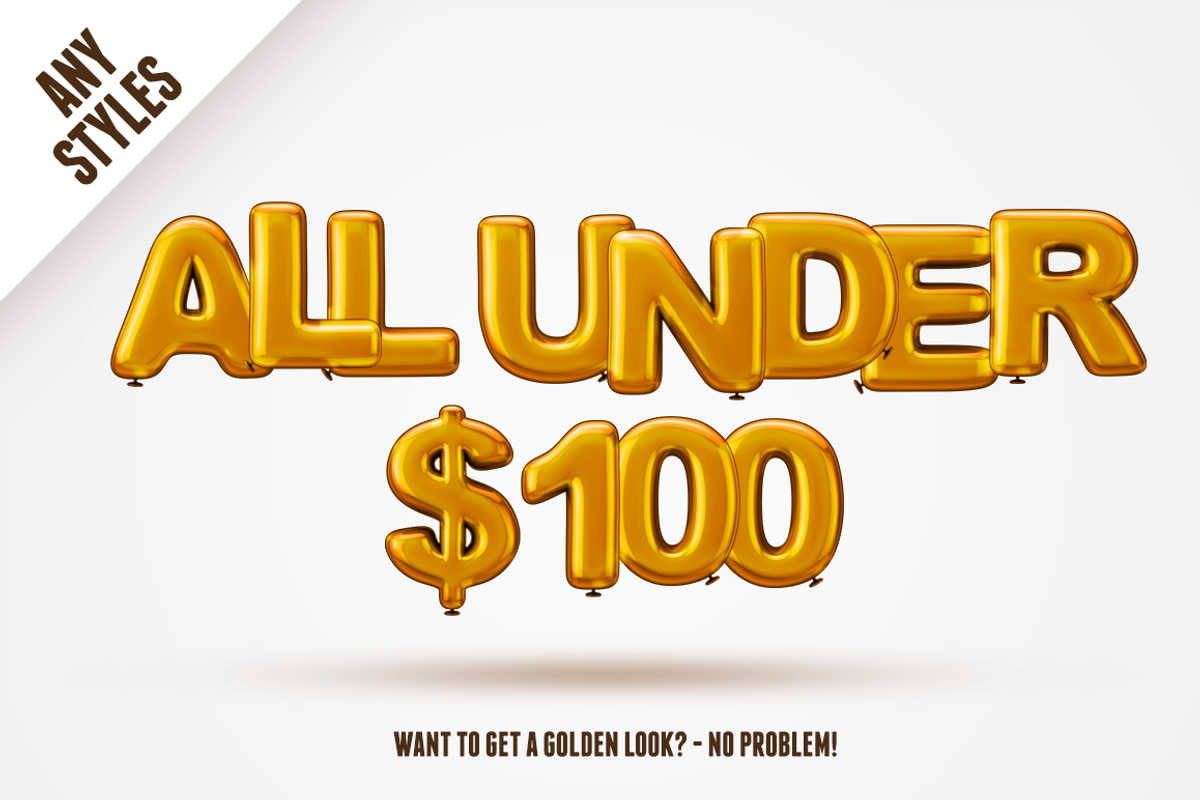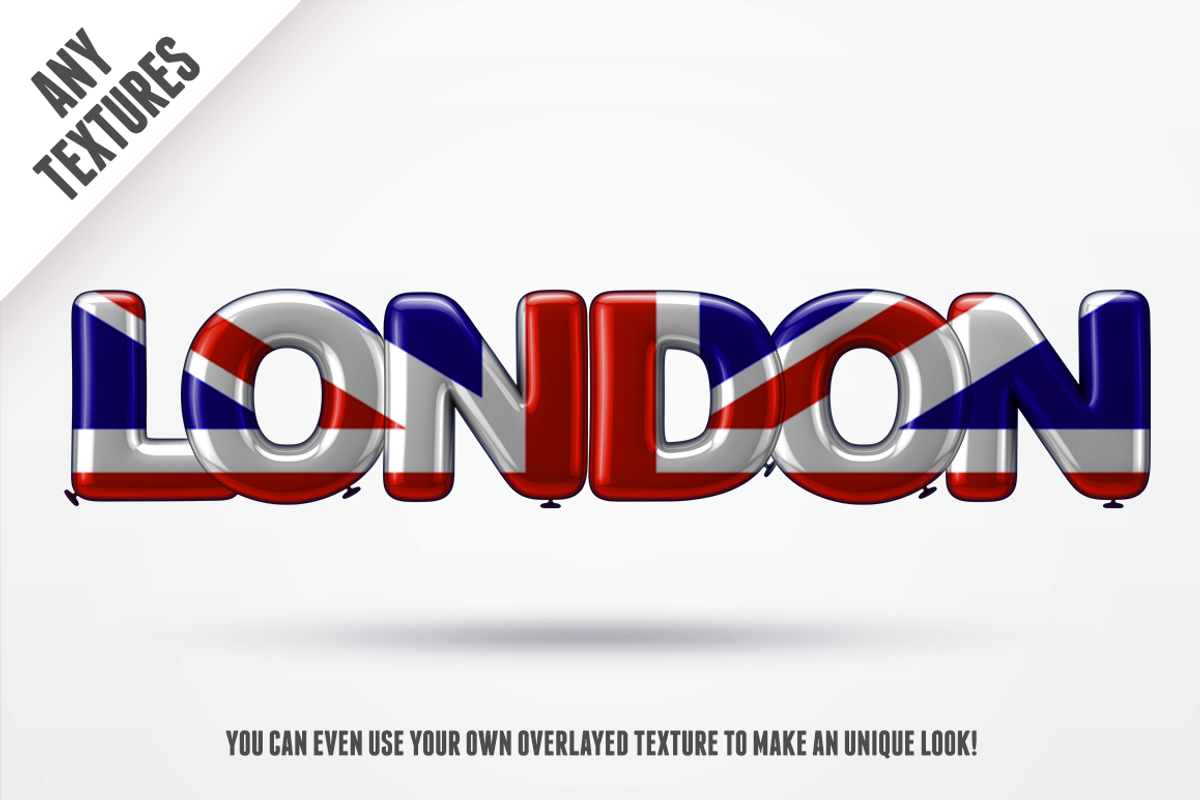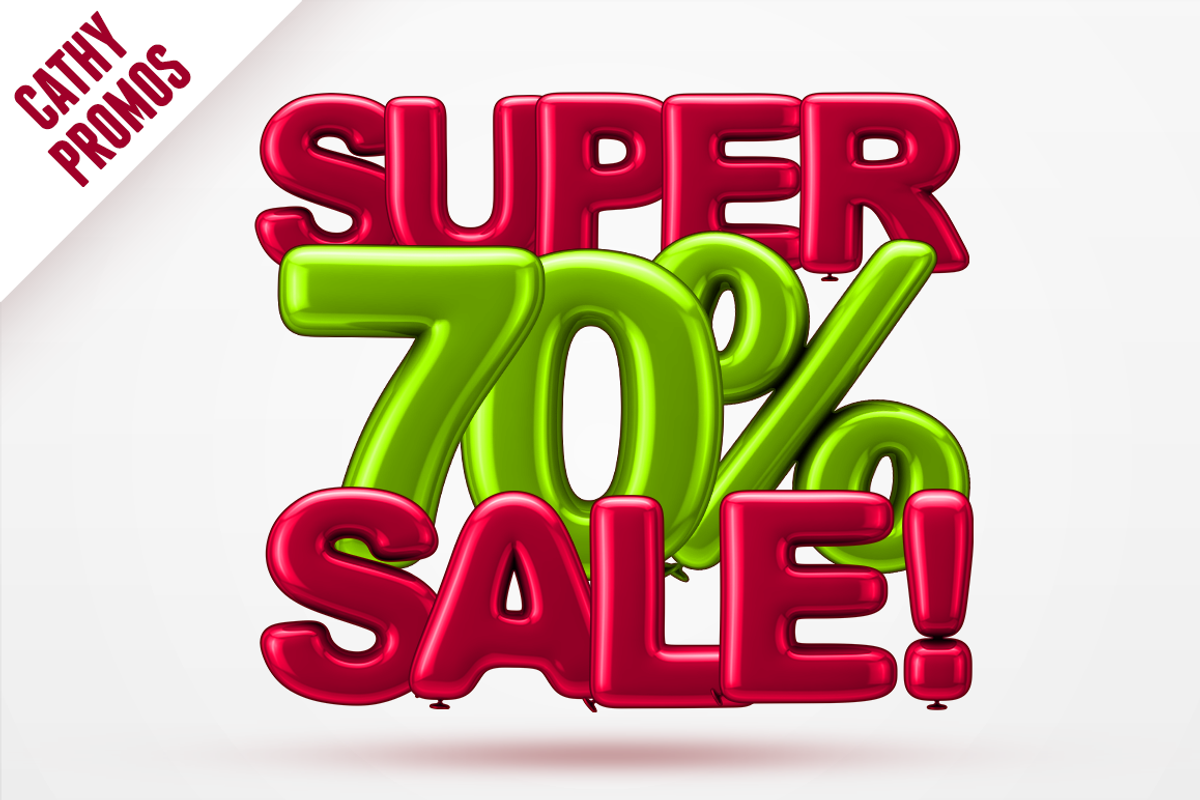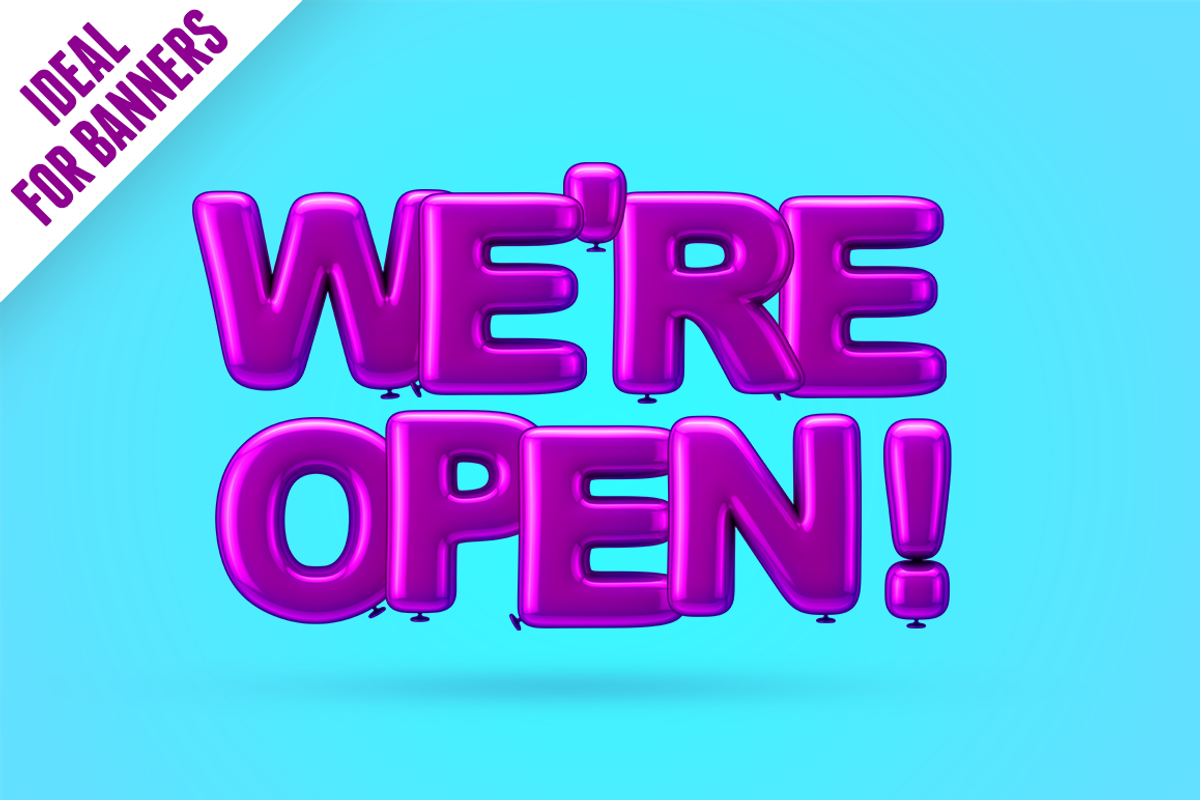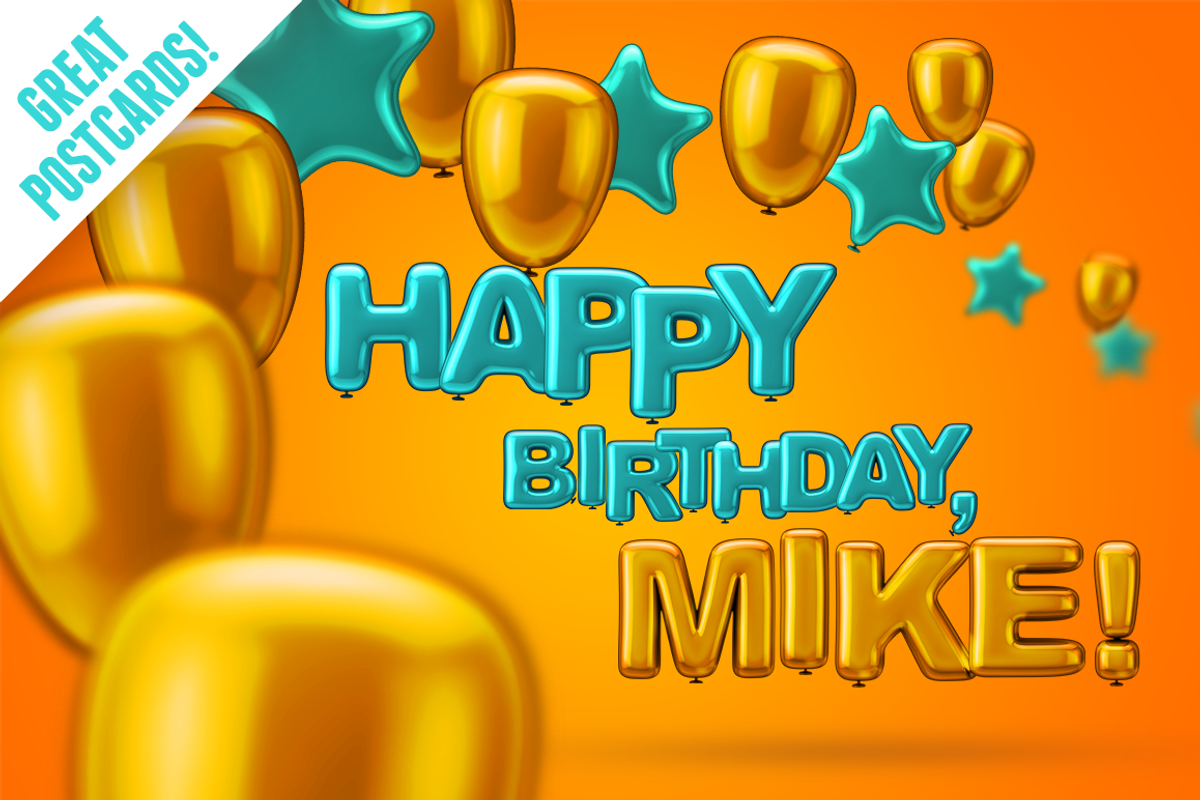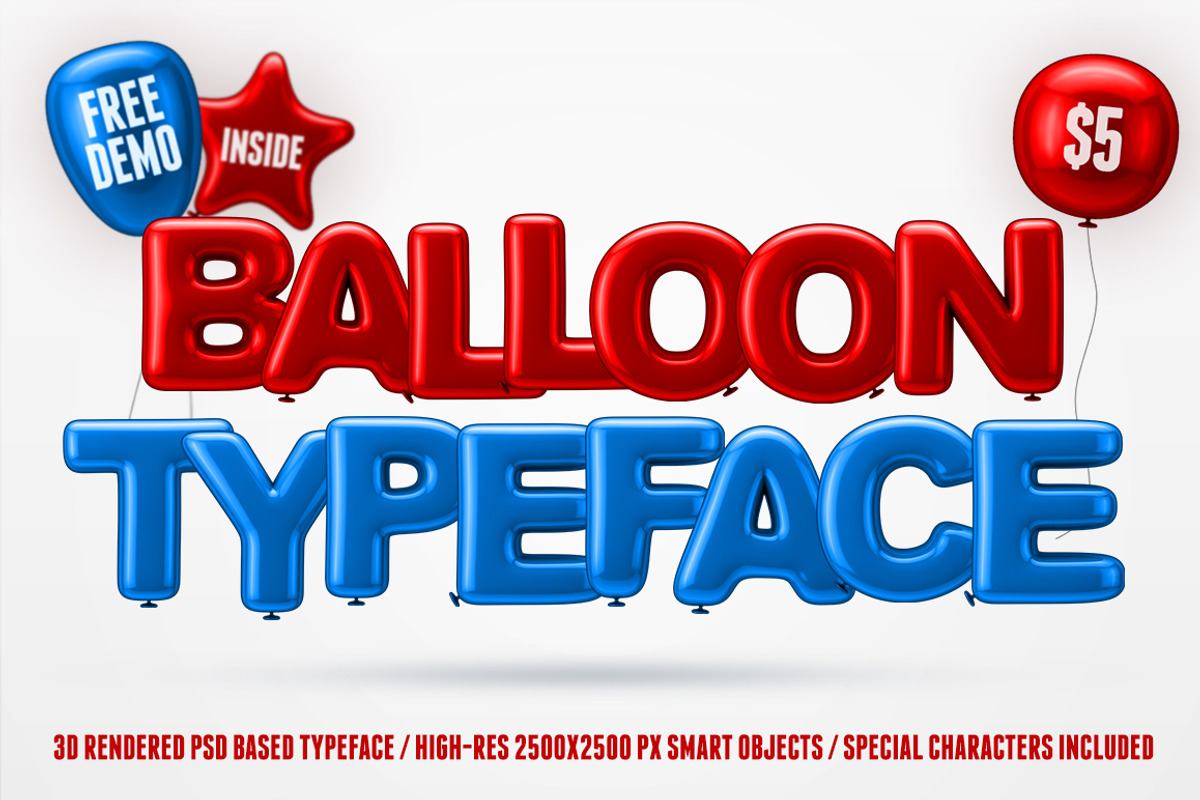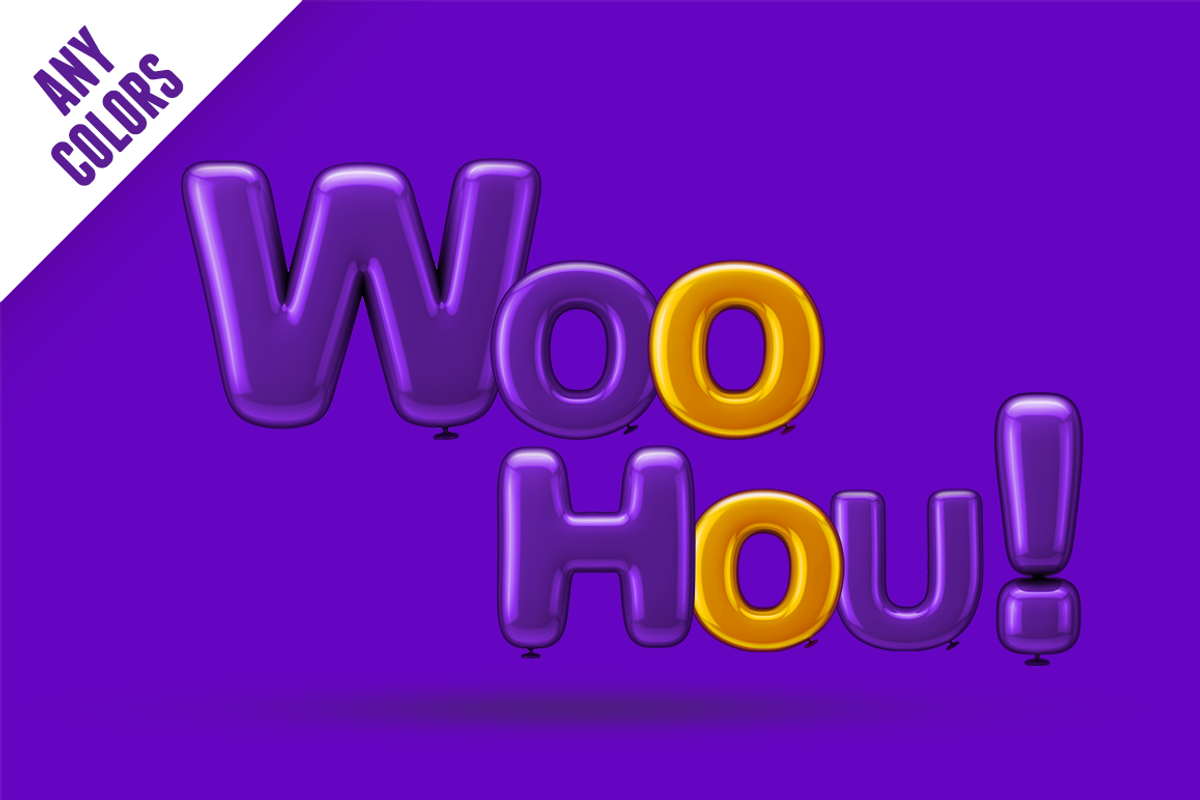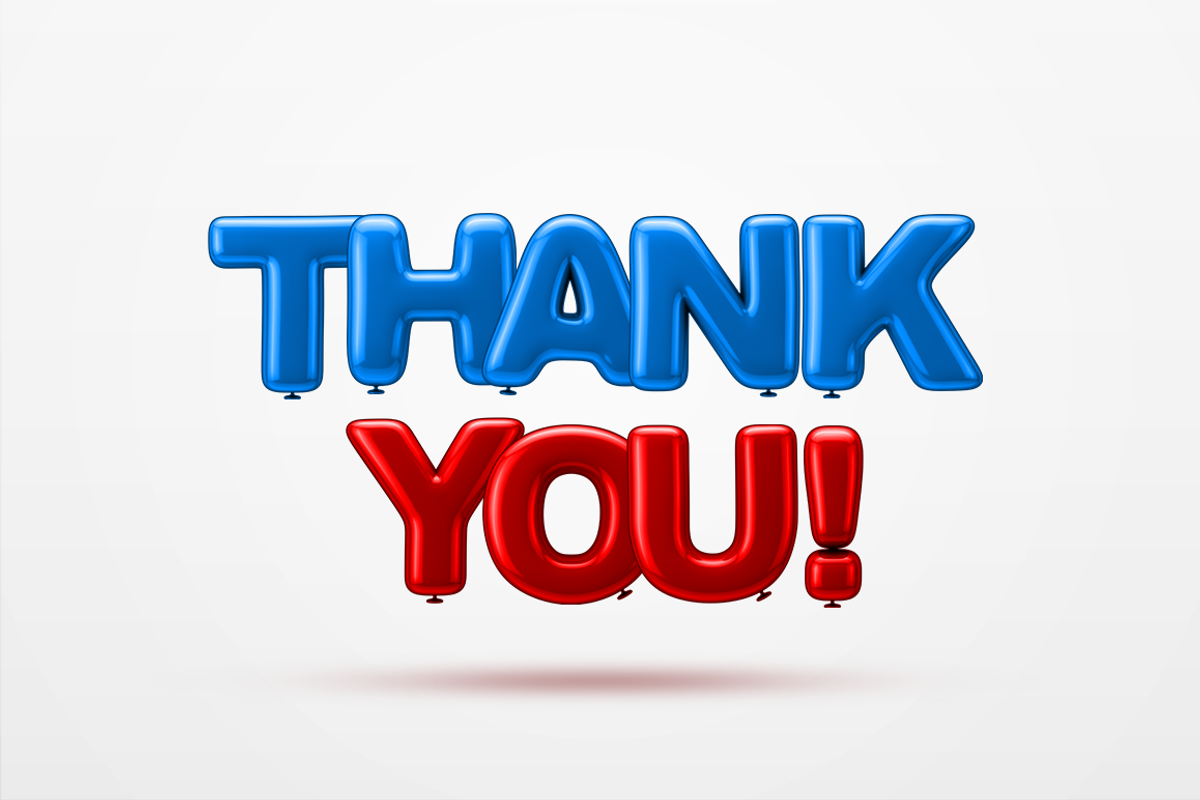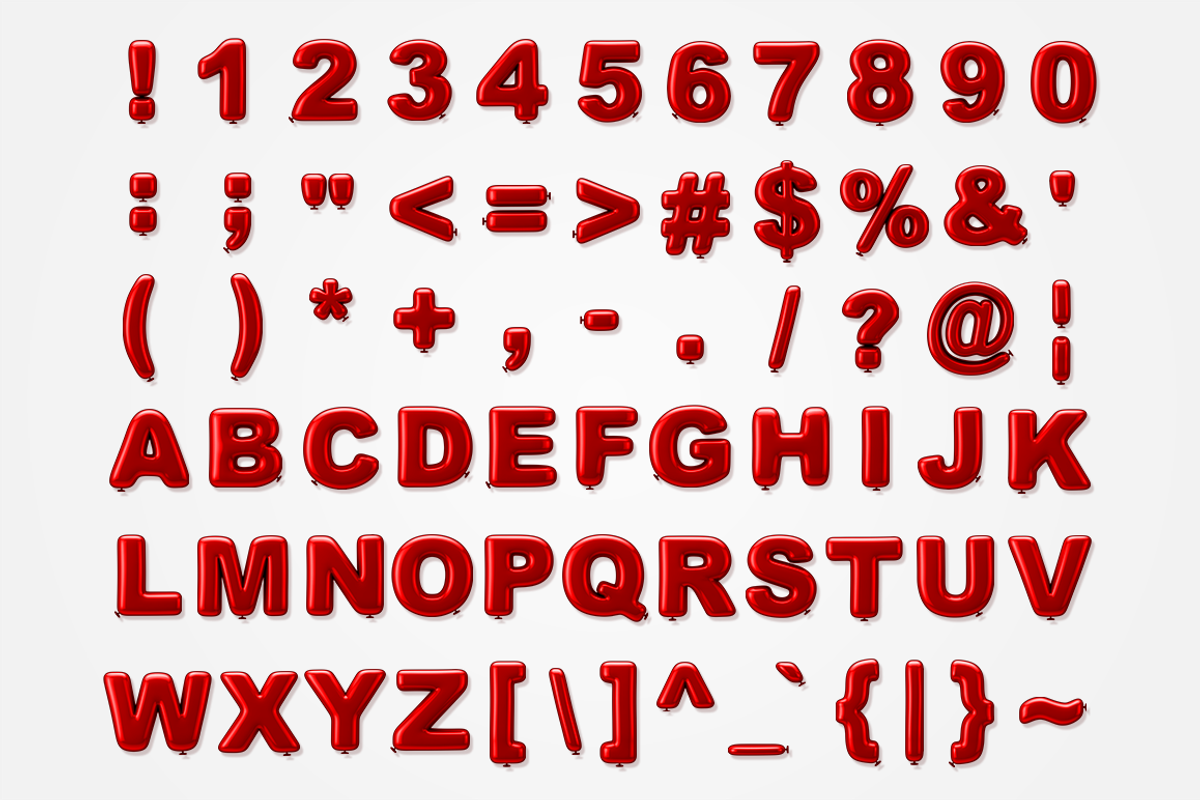
Balloon Typeface
Balloon Typeface – 3D Lettering Pack
Perfect for seasonal design projects, banners, openers, postcards and price tags!
Really easy, fast and fun design process.
- Capital letters A - Z
- Numbers 0 - 9
- Symbols: ! ' “ @ & # % * + = $ , . ? _ - : ; / | { } [ ] ( )
- Use each character individually or merge together to make words and sentences.